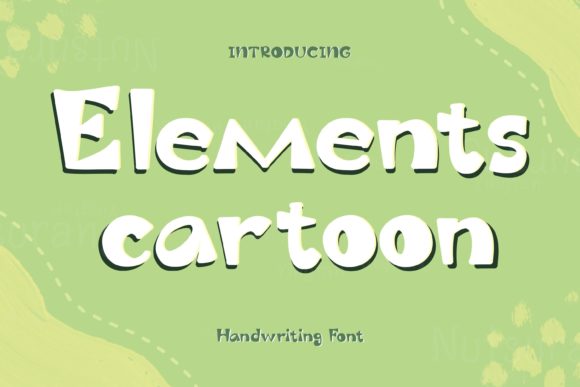
Introducing Elements Cartoon Font: The Ultimate Display Font for Crafty Designs
Are you a designer, crafter, or DIY enthusiast looking for a font that can add a touch of fun and playfulness to your projects? Look no further than Elements Cartoon Font! This cool and fun display font is perfect for elevating a wide range of crafting ideas, from cards and invitations to branding, labels, and more.
What is Elements Cartoon Font?
Elements Cartoon Font is a unique and eye-catching display font that is designed to bring a smile to your face. With its bold lines, bright colors, and whimsical feel, this font is sure to make your designs stand out from the crowd. Whether you’re creating handmade cards, crafting custom labels, or designing branding materials, Elements Cartoon Font is the perfect choice.
Key Features of Elements Cartoon Font
- Fun and playful design: Elements Cartoon Font features a fun and playful design that is sure to add a touch of whimsy to your projects.
- Bold lines and bright colors: The font’s bold lines and bright colors make it perfect for creating eye-catching designs that grab attention.
- Versatile: Elements Cartoon Font can be used for a wide range of crafting ideas, from cards and invitations to branding, labels, and more.
Uses for Elements Cartoon Font
Elements Cartoon Font is a versatile font that can be used for a wide range of crafting ideas, including:
- Handmade cards: Add a touch of fun and playfulness to your handmade cards with Elements Cartoon Font.
- Custom labels: Create custom labels for your products or projects with this eye-catching font.
- Branding materials: Use Elements Cartoon Font to create unique and memorable branding materials, such as logos, business cards, and more.
- Invitations: Create fun and playful invitations for parties, events, and more with this font.
- DIY projects: Add a touch of personality to your DIY projects, such as scrapbooking, journaling, and more.
Why Choose Elements Cartoon Font?
There are many reasons why designers and crafters choose Elements Cartoon Font for their projects. Here are just a few:
- Unique design: Elements Cartoon Font features a unique and eye-catching design that is sure to make your projects stand out.
- Versatile: Elements Cartoon Font can be used for a wide range of crafting ideas, making it a great addition to any design library.
- Fun and playful: This font is perfect for adding a touch of fun and playfulness to your projects.
Tips for Using Elements Cartoon Font
Here are a few tips for using Elements Cartoon Font in your projects:
- Use it sparingly: Elements Cartoon Font is a bold and eye-catching font, so use it sparingly to avoid overwhelming your design.
- Pair it with other fonts: Pair Elements Cartoon Font with other fonts to create a unique and interesting design.
- Experiment with colors: Experiment with different colors to find the perfect combination for your design.
- Have fun: Most importantly, have fun with Elements Cartoon Font! This font is designed to add a touch of fun and playfulness to your projects, so don’t be afraid to get creative.
| Author | N Nakorn Creative |
Elements Cartoon Font is a cool and fun display font that is perfect for designers, crafters, and DIY enthusiasts. With its unique design, bold lines, and bright colors, this font is sure to add a touch of fun and playfulness to your projects. Whether you’re creating handmade cards, custom labels, or branding materials, Elements Cartoon Font is the perfect choice. So why wait? Download Elements Cartoon Font today and start creating fun and playful designs!